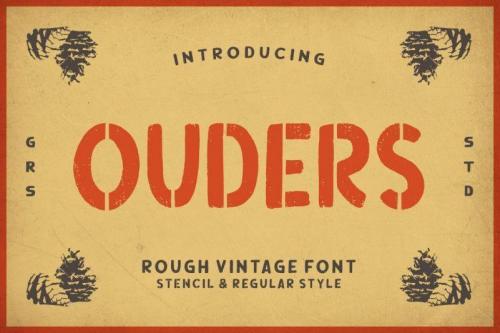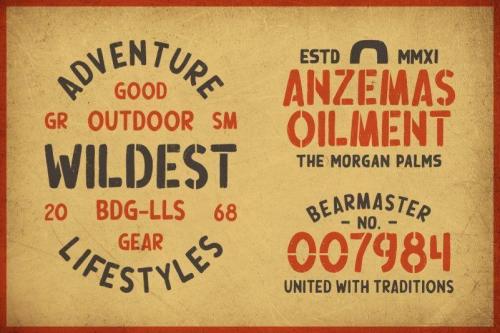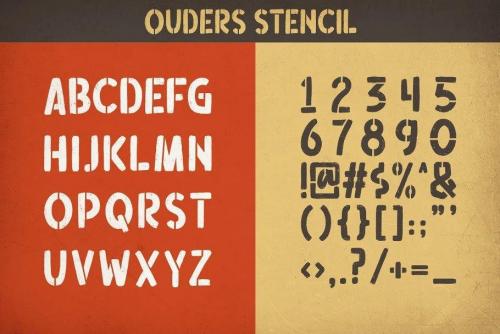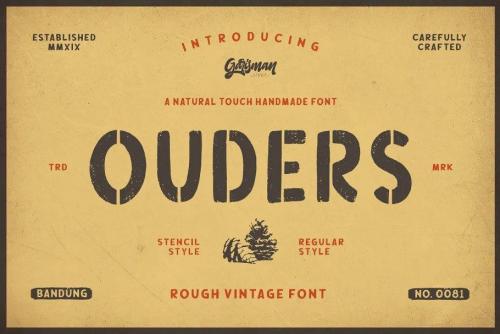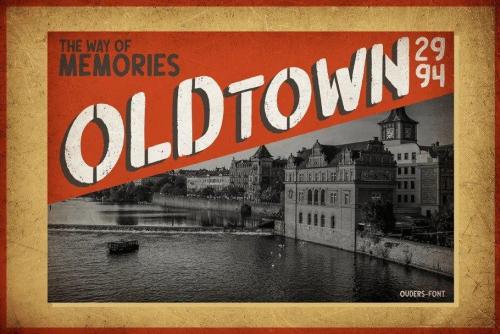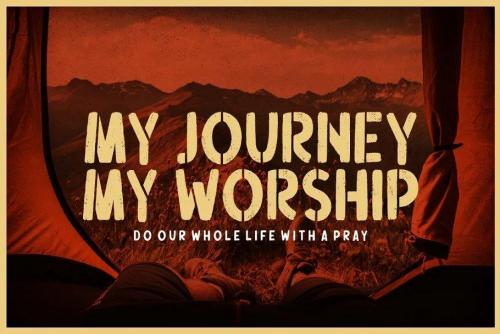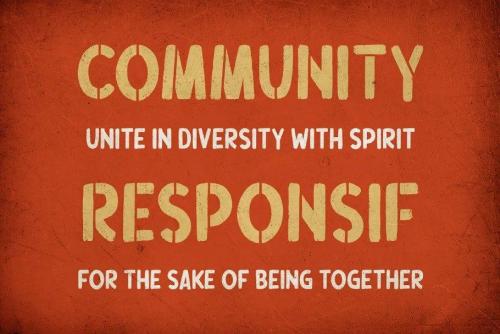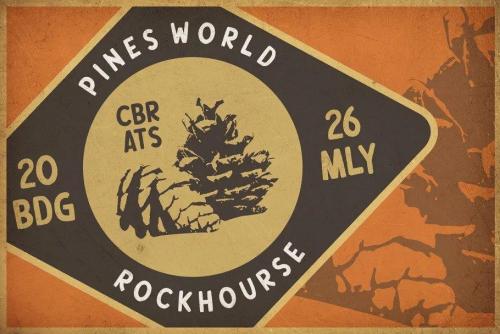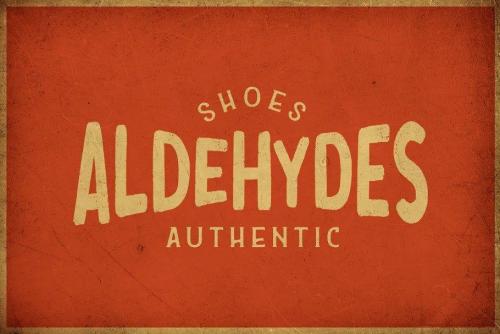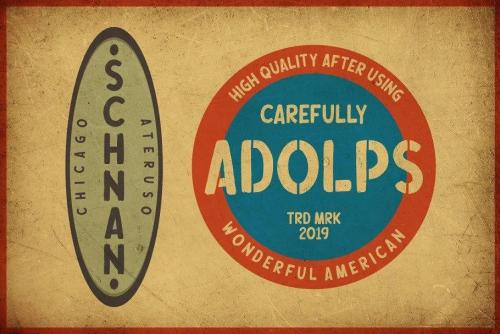
OUDERS is born from original and hand-drawn style font. This font gives a feel of a vintage, classic, old, handmade looked like.
Already PUA Encoded and I think this font is perfect for people looking for vintage aesthetic or hand-drawn logo. Suitable for any graphic designs such as branding materials, t-shirt, print, business cards, logo, poster, t-shirt, photography, quotes .etc.